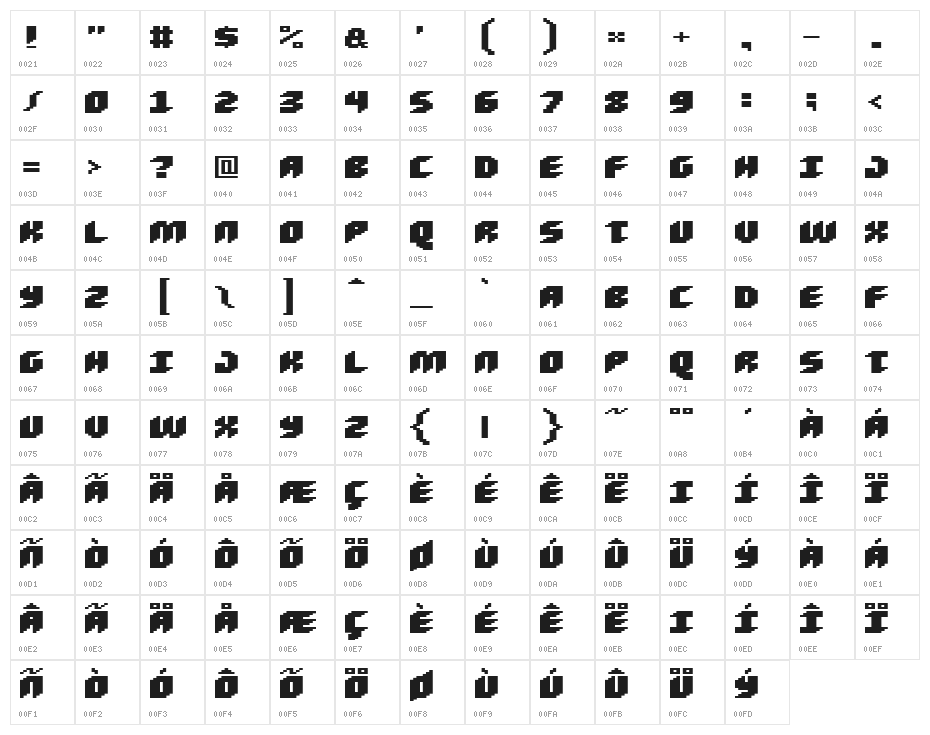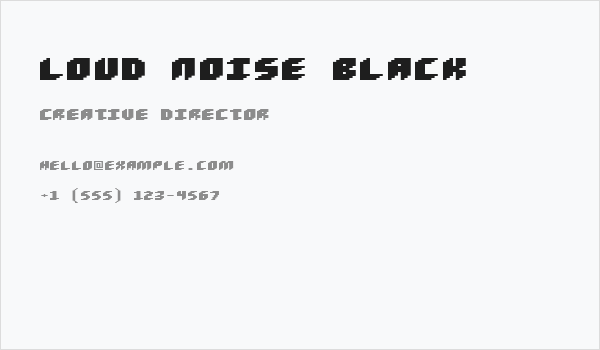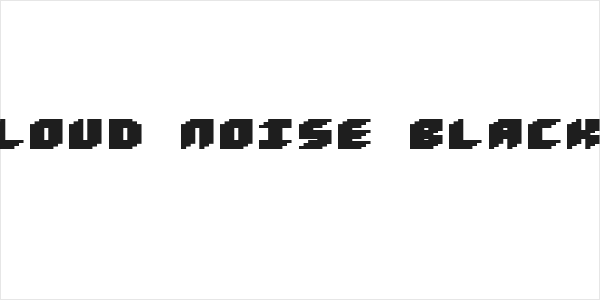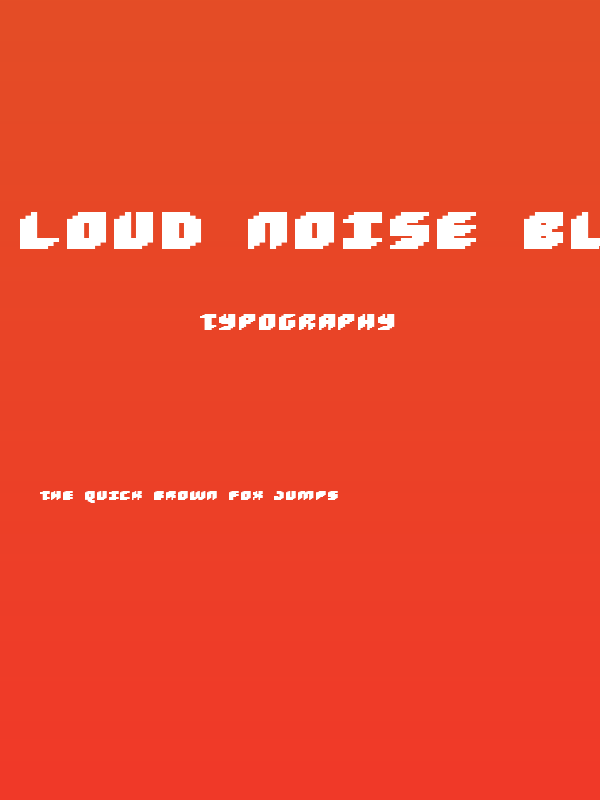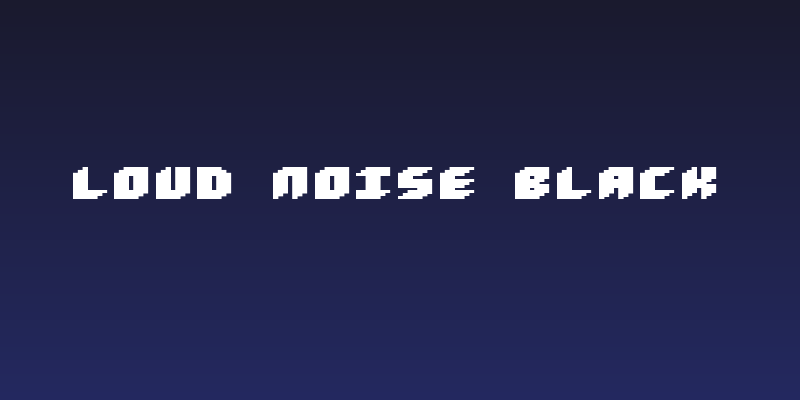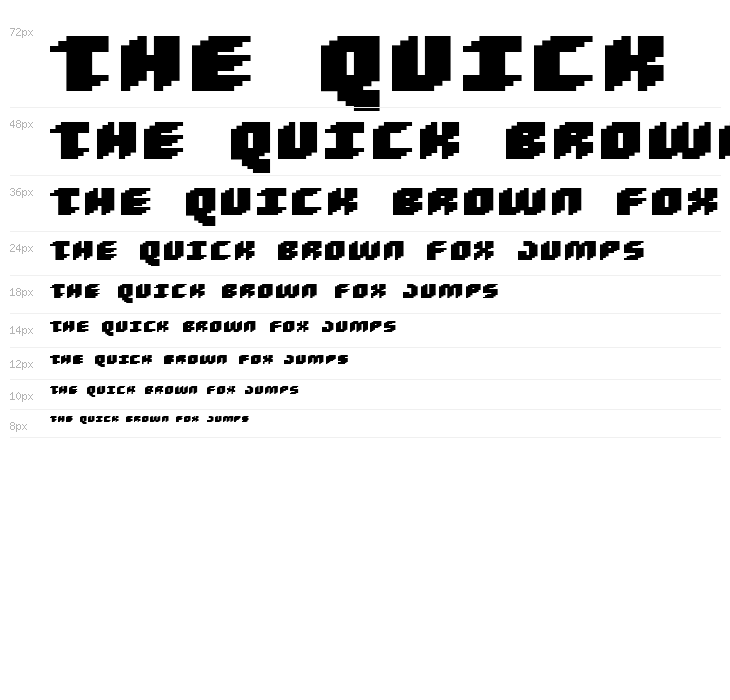
Loud noise Black Font
Loud noise Black Description
This font features a bold, blocky design with a distinctly pixelated aesthetic, reminiscent of retro video game graphics. The characters are uniformly thick, with sharp angles and a consistent stroke width that gives it a strong, impactful presence. The uppercase and lowercase letters maintain a similar structure, enhancing its cohesive look. The numerals and special characters follow the same design principles, ensuring a unified appearance across all glyphs. This font's unique style makes it stand out, ideal for projects that require a vintage or digital feel.
| Proposed Projects | Perfect for video game designs, retro-themed posters, digital art projects, and any creative work that requires a bold, nostalgic touch. |